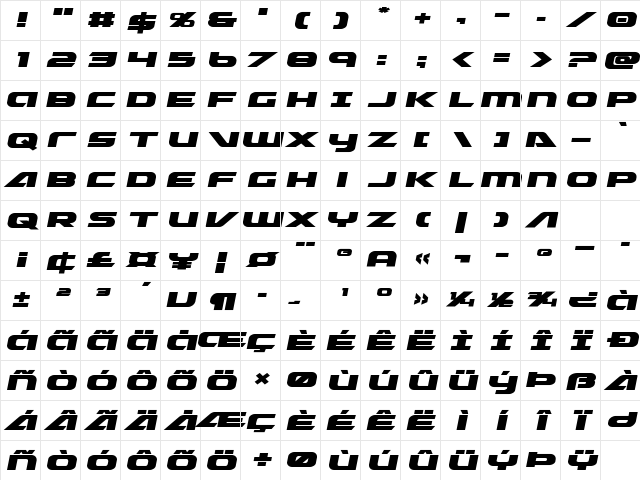
Graymalkin Expanded Expanded
Style: Expanded
Design Context for Graymalkin Expanded
Graymalkin Expanded is a composed and adaptable typeface that performs quietly and consistently across a wide range of design contexts.